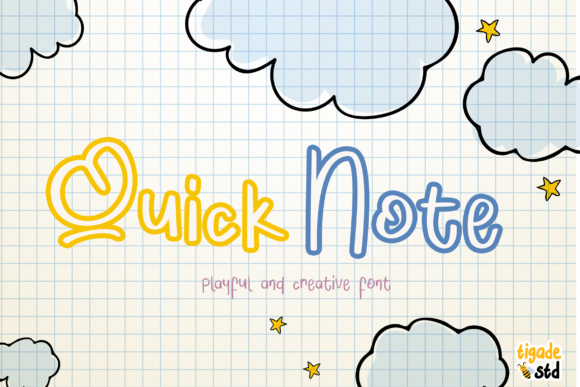
Enter the realm of Quick Note Font, a whimsical script font family that dances gracefully across your digital canvas. Crafted by the visionary hands of Tigade Std, this font is a testament to the beauty of simplicity, capturing the essence of handwritten letters with a modern twist.
With Quick Note, your designs will exude a personal and genuine touch. Its authentic look adds a layer of realism that captivates the heart. From chalkboard quotes to teaching materials, this font transforms ordinary text into an enchanting visual experience.
Unleash your creativity and embark on a journey of expression. Let Quick Note be your trusty companion as you create stunning designs that speak volumes. Its versatility is boundless, just like your imagination. Whether it's for personal projects, social media posts, or professional presentations, this font will elevate your content to new heights of engagement and impact.
Immerse yourself in the world of Quick Note and discover the joy of effortless elegance. Its carefully crafted characters flow seamlessly, leaving a trail of visual delight. Experience the magic of a font that not only enhances your designs but also captures the essence of your creativity.
So why settle for ordinary when you can embrace the extraordinary? Embrace Quick Note today and unlock a world of design possibilities that will leave a lasting impression on your audience. Let your designs flourish with the charm and authenticity of Quick Note, and let your creativity soar to new heights.